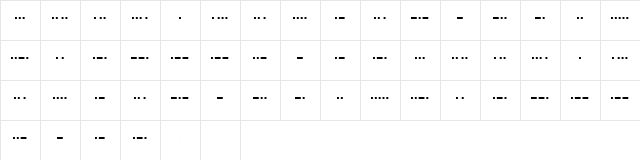
MC morse_Vail_Code_1837 Regular
| Designer | Marek Cerajewski |
Design Context for MC morse_Vail_Code_1837 Typeface
MC morse_Vail_Code_1837 uses fixed-width spacing throughout, giving it the structured, systematic character associated with coding environments and technical documentation.